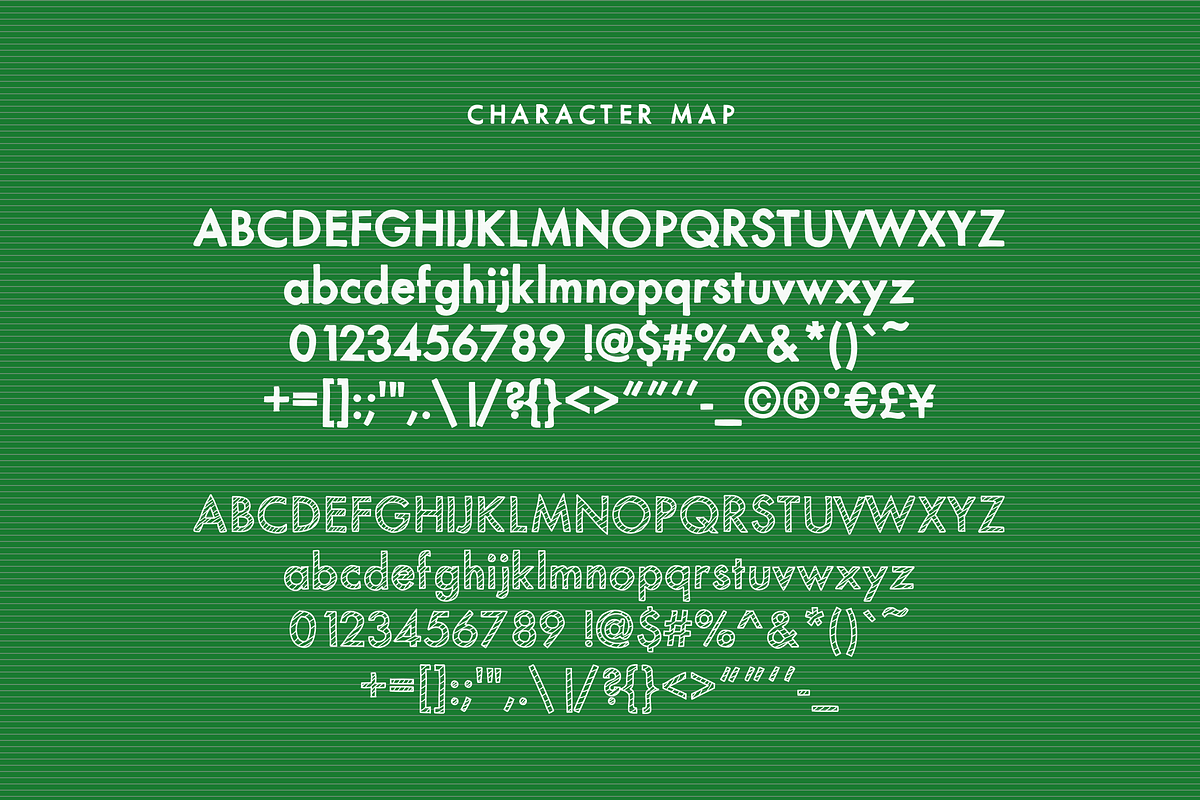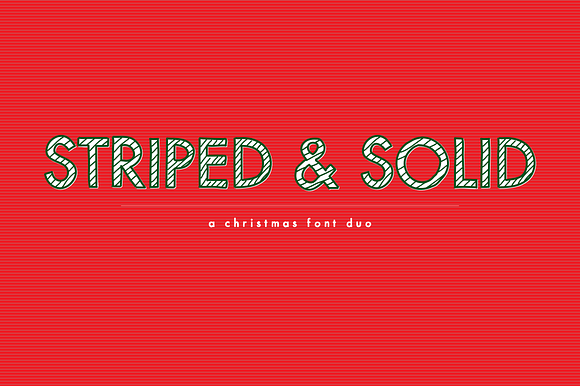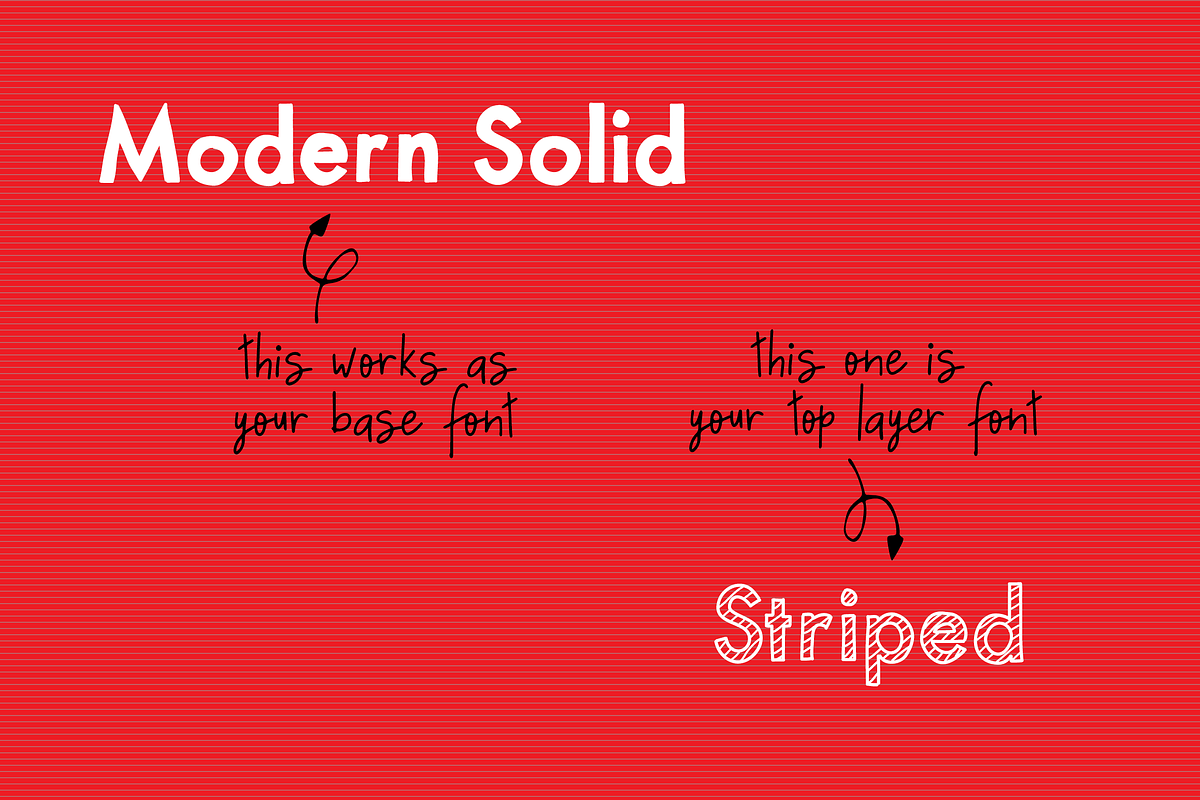
Striped & Solid—A Christmas Font Duo
STRIPED & SOLID is a Christmas font duo. These fonts can be used alone or in combination. Switch up among two of my favorite fonts to create fun and whimsical variations. Get creative! This font family is perfect for handmade and DIY themed projects—particularly perfect for the Christmas Holiday season. The stripes are reminiscent of candy canes, and serve as a great top layer for a bold, solid base font.